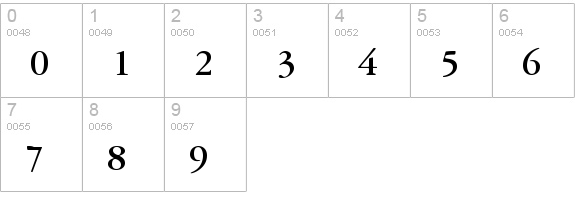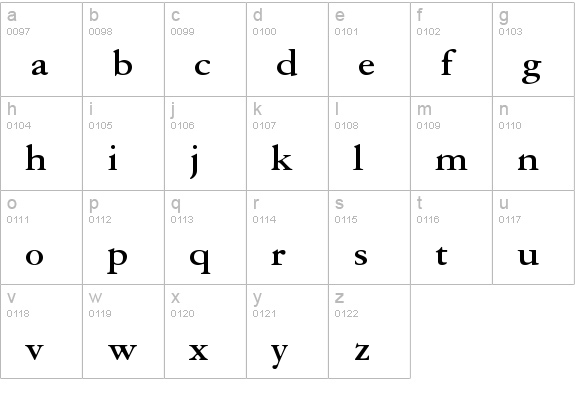
Garamond Three Bold Font Details
Garamond Three Bold is a strong, high-contrast variant in the Garamond typeface family \xE2\x80\x94 well suited to headlines, attention-grabbing titles, and strong calls-to-action.
Garamond Three Bold font is a timeless and elegant typeface that exudes sophistication and class. With its bold weight, it commands attention and makes a strong statement in any design project. The sturdy yet graceful strokes of this font give it a sense of authority and confidence. What makes Garamond Three Bold font even more appealing is that it is free to download at FontsMarket.com. This means that you can easily access and use this beautiful typeface in your creative endeavors without any cost. Whether you're designing a poster, a logo, or any other visual project, Garamond Three Bold font will add a touch of refinement and professionalism to your work. Take advantage of this free font and elevate your designs with its timeless charm.